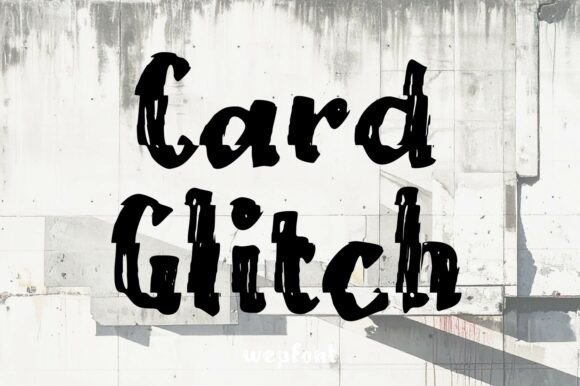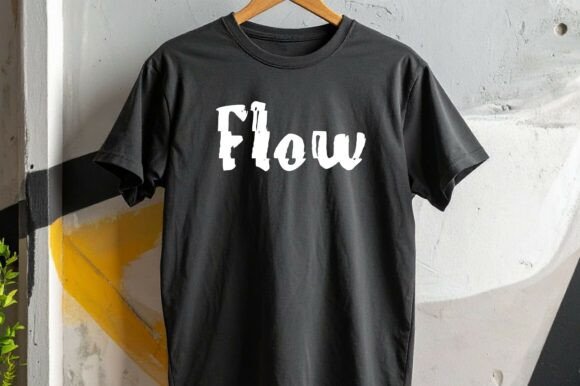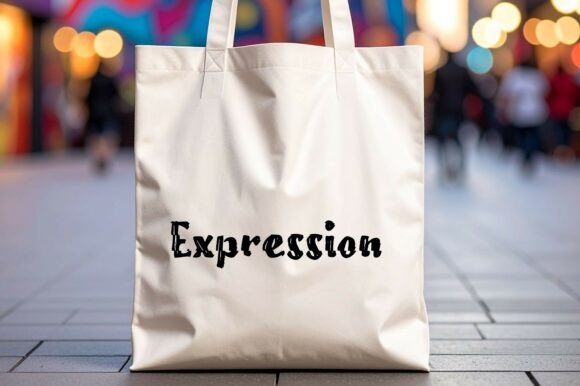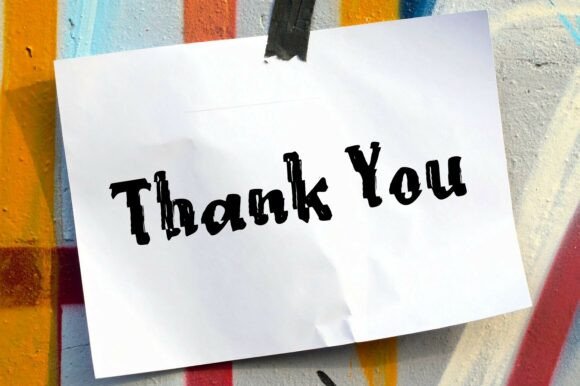
Unlock the Energy of the City with Card Glitch Font
Have you ever found yourself stuck in the creative zone, trying to convey the intensity and energy of a cityscape through your designs? Maybe you’re working on a project that needs a bold, edgy touch – one that screams ‘urban’ and ‘digital’. That’s where Card Glitch Font comes in, a dynamic and unpredictable typeface that captures the essence of the city’s vibrant chaos.
With its unique blend of street art and digital elements, Card Glitch Font is perfect for designers looking to add an extra layer of depth and emotion to their work. Whether you’re creating a punk music cover, a video game title, or a protest poster, this font has the ability to etch your designs in the viewer’s memory. Its broad compatibility with most graphic design platforms makes it an invaluable tool for creatives who want to push the boundaries of their work.
Key Features of Card Glitch Font
- Unique Characteristics: This font features a distressed, glitch-inspired aesthetic, with subtle distortions and imperfections that give it a unique, retro-futuristic feel.
- Legibility: Despite its distressed appearance, Card Glitch Font is surprisingly legible, making it suitable for body text and other long-form content.
Card Glitch Font Review
Overall, I think the Card Glitch Font has some nice qualities, but it also has some limitations that might make it less suitable for certain projects. ✨
- Unique aesthetic: The Card Glitch Font has a distinctive, glitchy look that can add a lot of character to a design.
- Wide character set: The font includes a wide range of characters, including punctuation and symbols, which makes it easy to use in a variety of contexts.
- Good for digital designs: The font’s glitchy aesthetic makes it particularly well-suited for digital designs, such as video games, apps, and websites.
- Difficult to read at small sizes: The font’s glitchy aesthetic can make it difficult to read at small sizes, which might limit its use in certain contexts.
- Limited legibility: The font’s unique characters can be difficult to distinguish from one another, which can make it harder to read.
- Not suitable for formal designs: The font’s playful, glitchy aesthetic might not be suitable for formal designs, such as business cards or resumes.
The Card Glitch Font is a fun, unique font that can add a lot of character to a design. However, its limitations might make it less suitable for certain projects. With some careful consideration and planning, it can be a great choice for digital designs that need a playful, glitchy aesthetic.
The Card Glitch Font is perfect for creating a retro, distressed look in designs such as:
- Retro video game-inspired graphics
- Film and TV show-inspired posters
- Distressed text effects in social media graphics